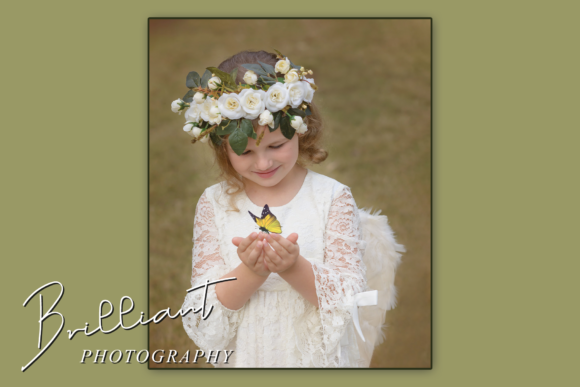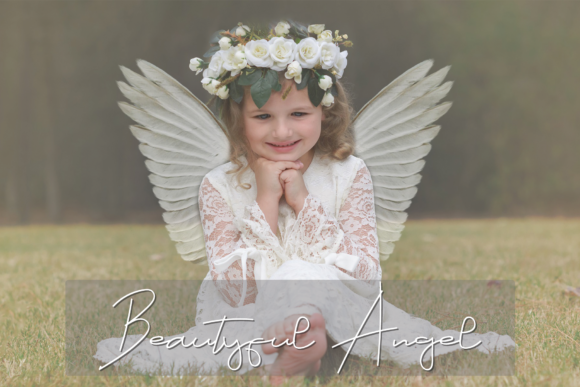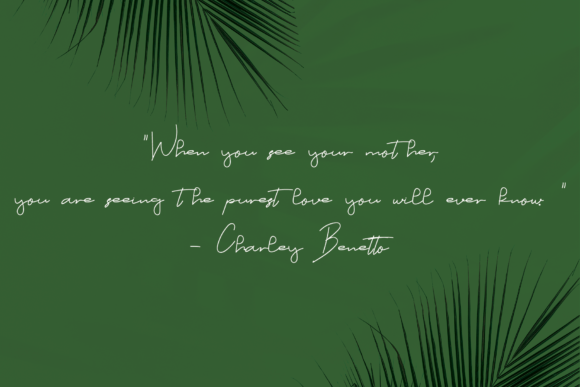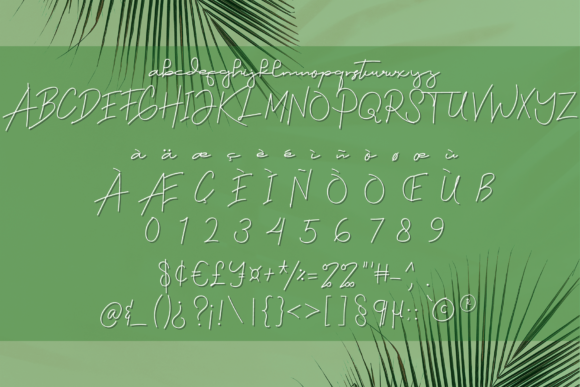
Unlock the Magic of Angel Signature Font
Have you ever stared at a blank page, feeling like the creative well has run dry? The blank slate staring back at you can be intimidating, but what if I told you that the perfect font could be the key to unlocking your next big idea?
Meet Angel Signature Font, a delicate and elegant handwritten font that adds a touch of whimsy and romance to any project. This beautiful font is perfect for designers looking to add a unique and sophisticated flair to their designs. With its thin and flowing lines, Angel Signature Font is sure to add a joyful and whimsical touch to any design. Whether you’re working on a wedding invitation, a branding project, or simply a personal blog, this font is sure to be a valuable addition to your design toolkit.
Angel Signature Font Key Features
- Font Family: Angel Signature Font is a unique, hand-drawn font designed to convey a sense of elegance and sophistication.
- Unique Characteristics: Features intricate details, flourishes, and ornaments that set it apart from other fonts, making it perfect for wedding invitations, greeting cards, and other special occasions.
Angel Signature Font Review
First off, let me say that the Angel Signature Font has a certain charm to it ✨. The elegant, cursive script is perfect for adding a touch of whimsy and sophistication to any design project. The font is also highly customizable, allowing you to adjust the size, color, and spacing to suit your needs.
One of the standout features of this font is its versatility. It works well for both digital and print applications, making it a great choice for a wide range of projects, from invitations and wedding stationery to digital graphics and social media graphics.
However, there are some limitations to consider ⚠️. The font can be a bit difficult to read in smaller sizes, and the curves can be a bit too fluid in some cases. Additionally, the font may not be suitable for projects that require a lot of bold or italic text.
- Elegant, cursive script
- Versatile for both digital and print applications
- May be difficult to read in smaller sizes
- May not be suitable for projects requiring bold or italic text
Overall, the Angel Signature Font is a beautiful and versatile choice for designers looking to add a touch of elegance to their projects. While it may have some limitations, the benefits far outweigh the drawbacks.
Tip: Use the Angel Signature Font for titles and headings to add a touch of elegance to your design.
Tip: Use the Angel Signature Font for intricate designs, such as invitations or greeting cards, to add a touch of whimsy and romance.
Tip: Use the Angel Signature Font for titles and headings to add a touch of sophistication and elegance to your presentation or document.
The Angel Signature Font is perfect for:
- Birth announcements and baby shower invitations
- Valentine’s Day cards and gifts
- Wedding and event planning materials